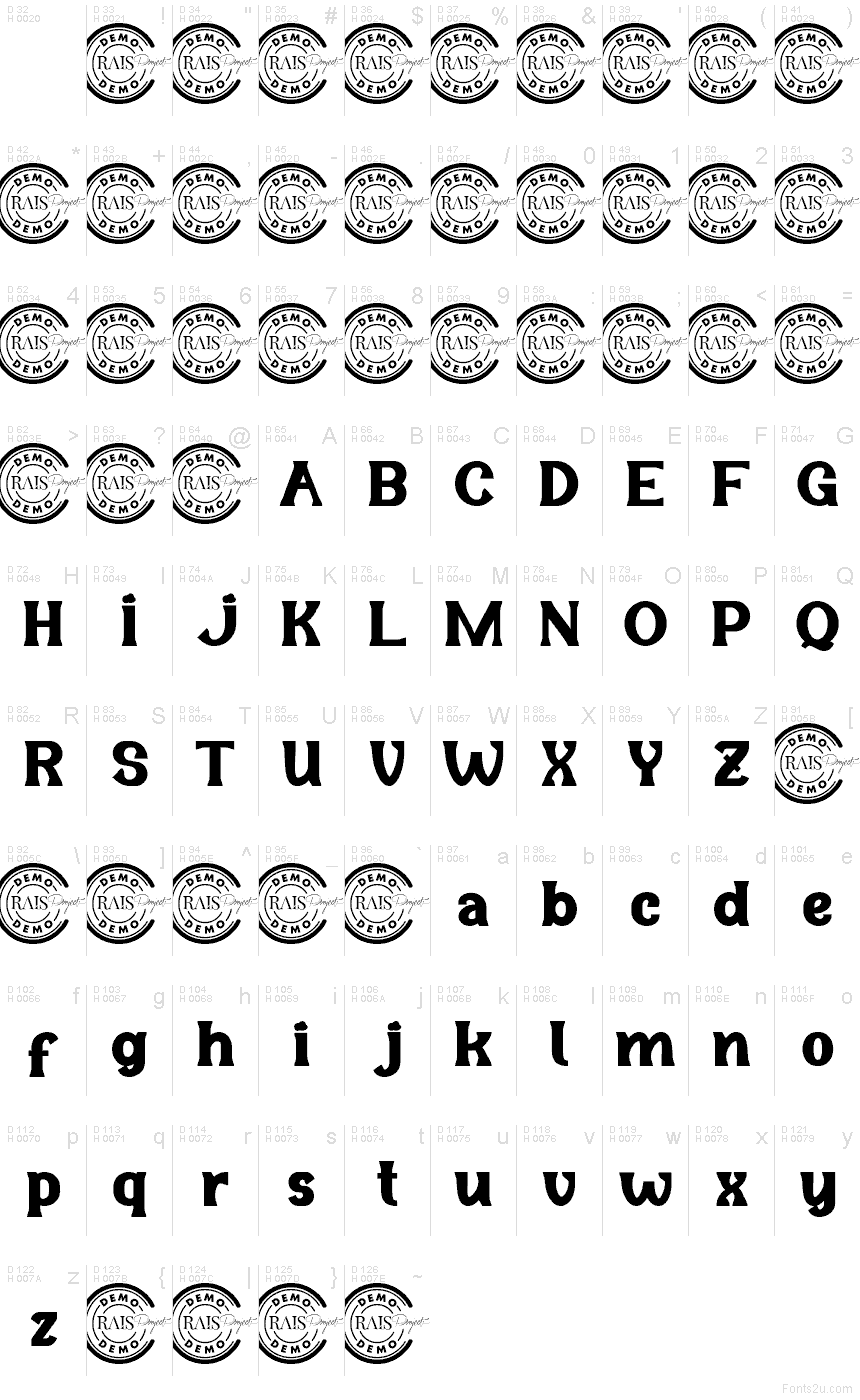
Nihiwatu Bold font by RaisProject is a bold display free font inspired by the origami geometric art of Japan. The emphasis in this design is placed on innovative ideas to form entirely new and unconventional letters and present the typographic world with a unique font unlike any other.
Nihiwatu Demo